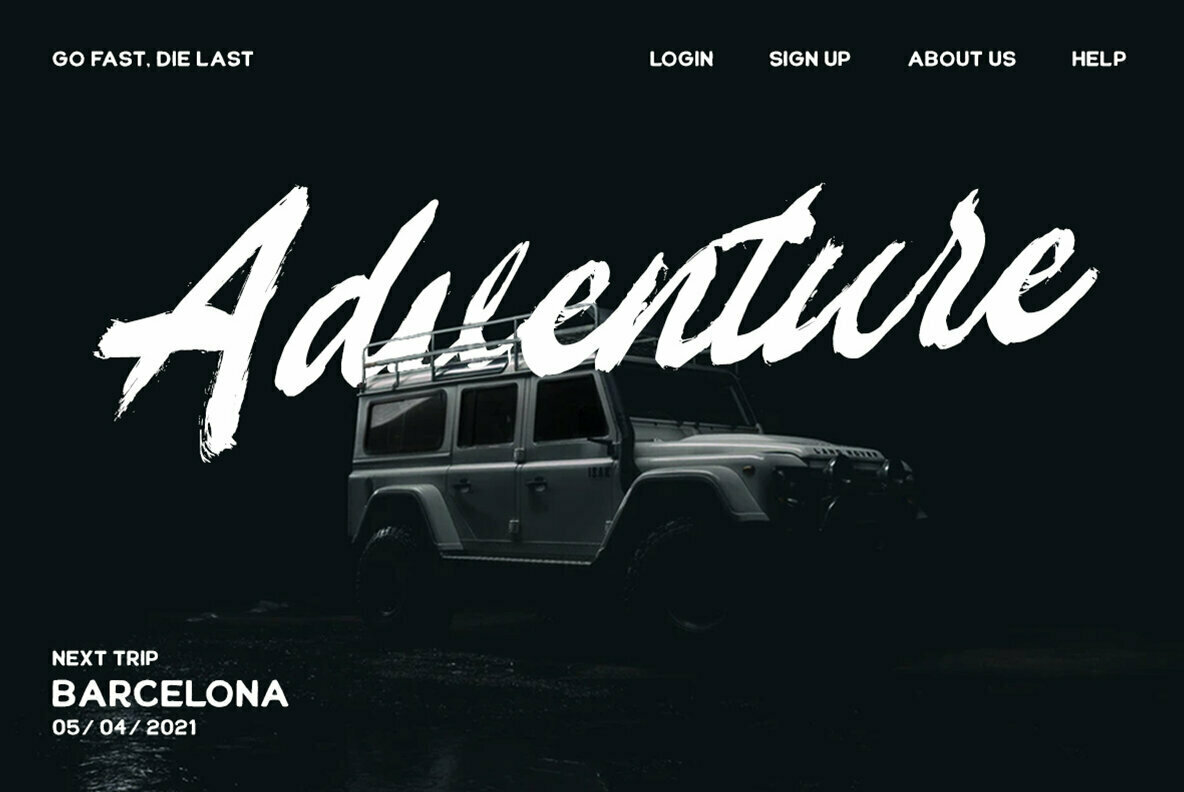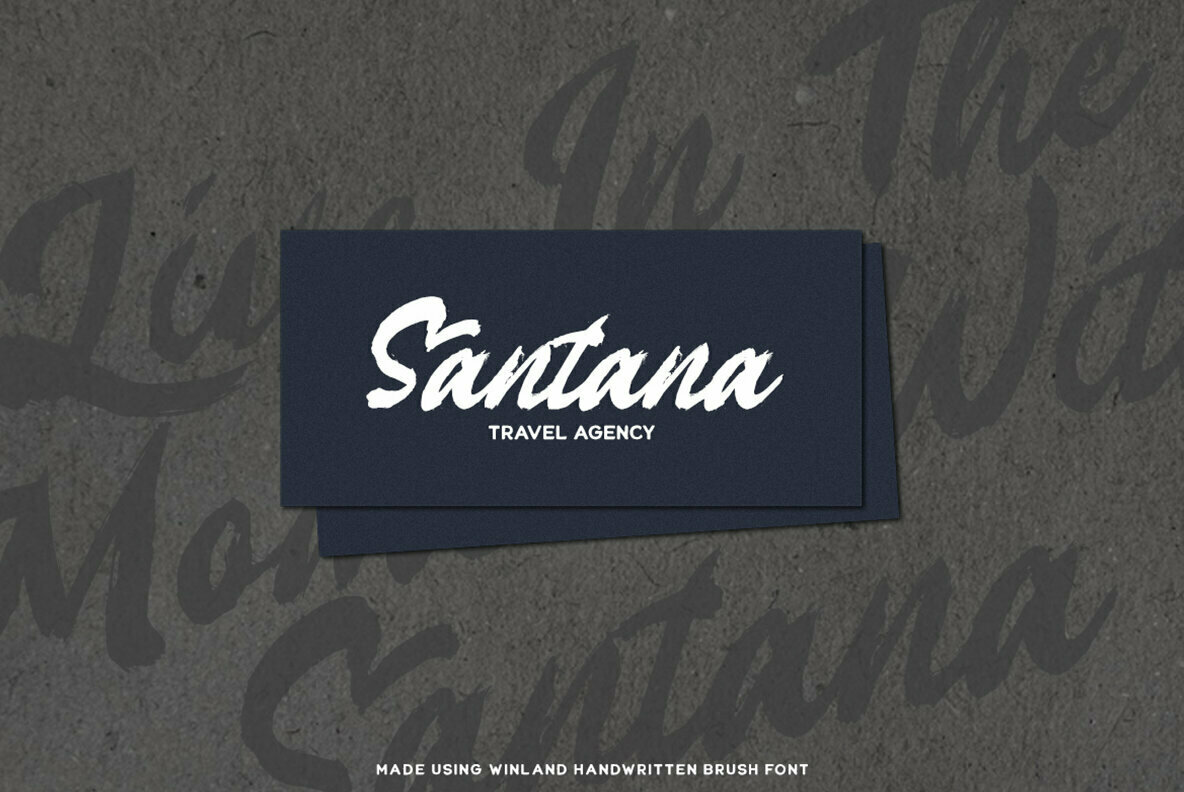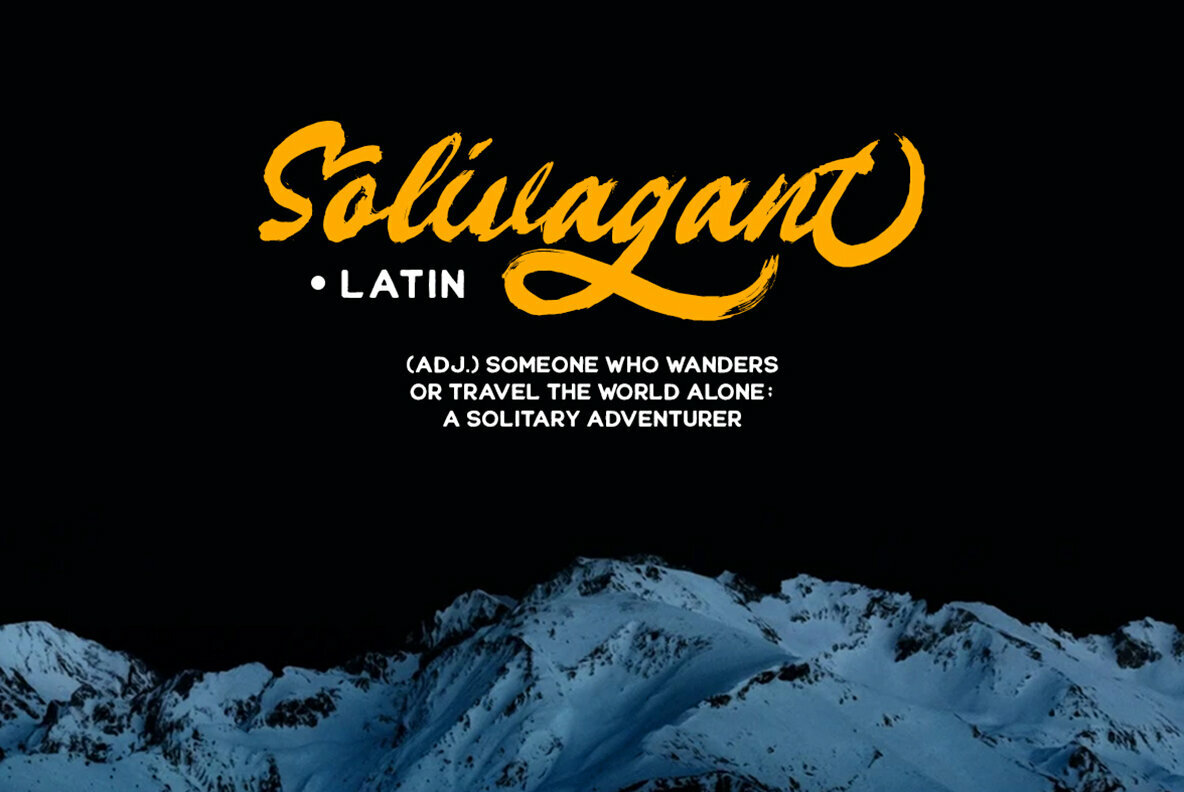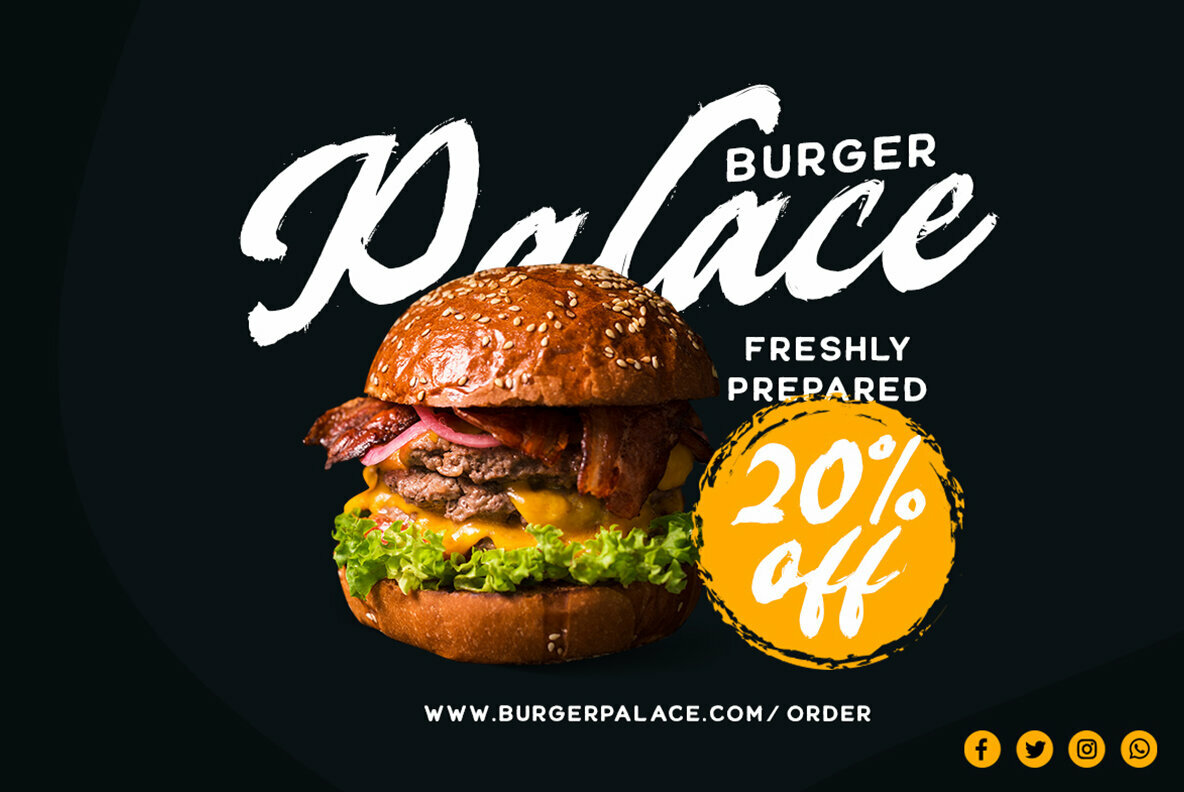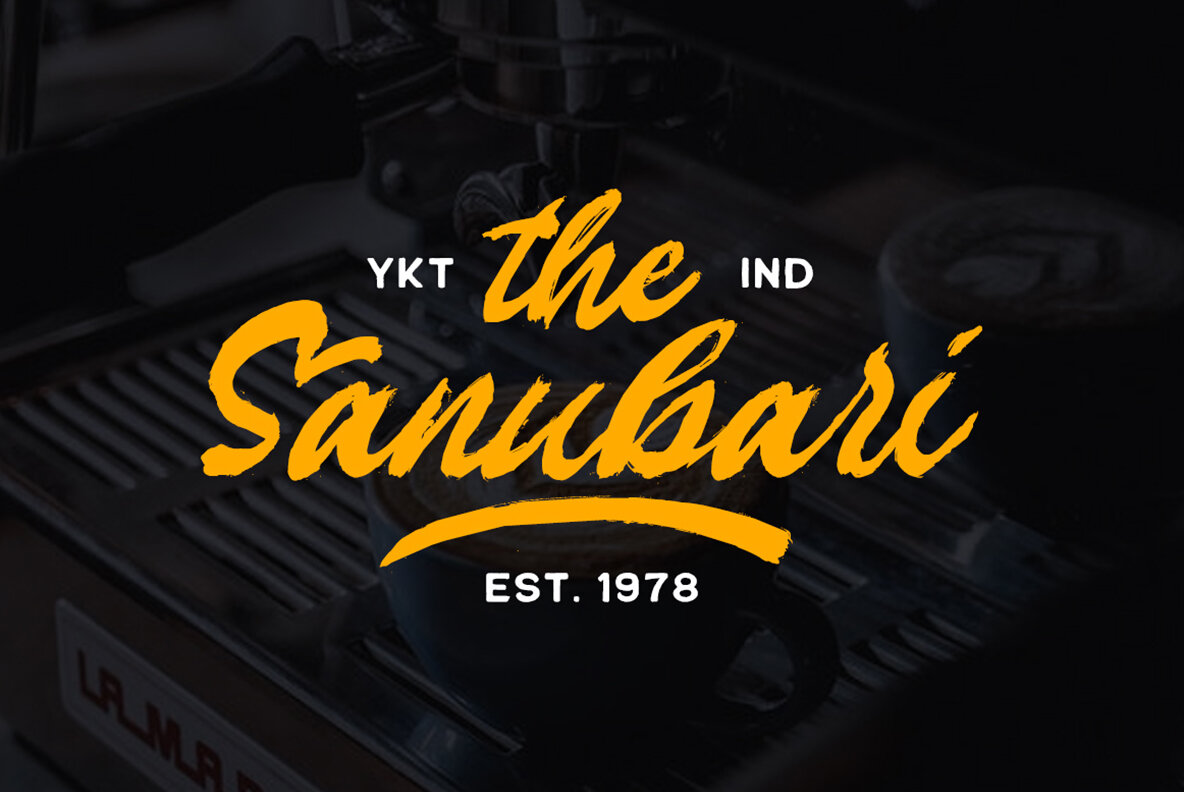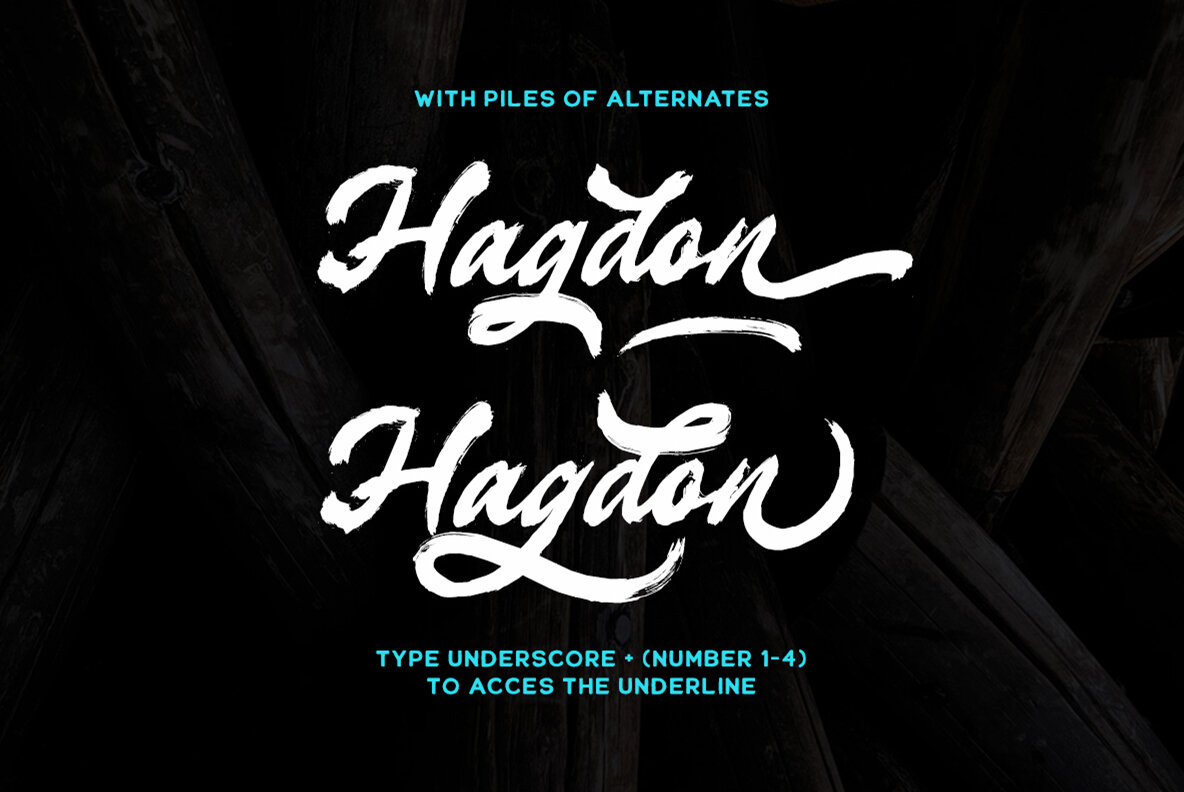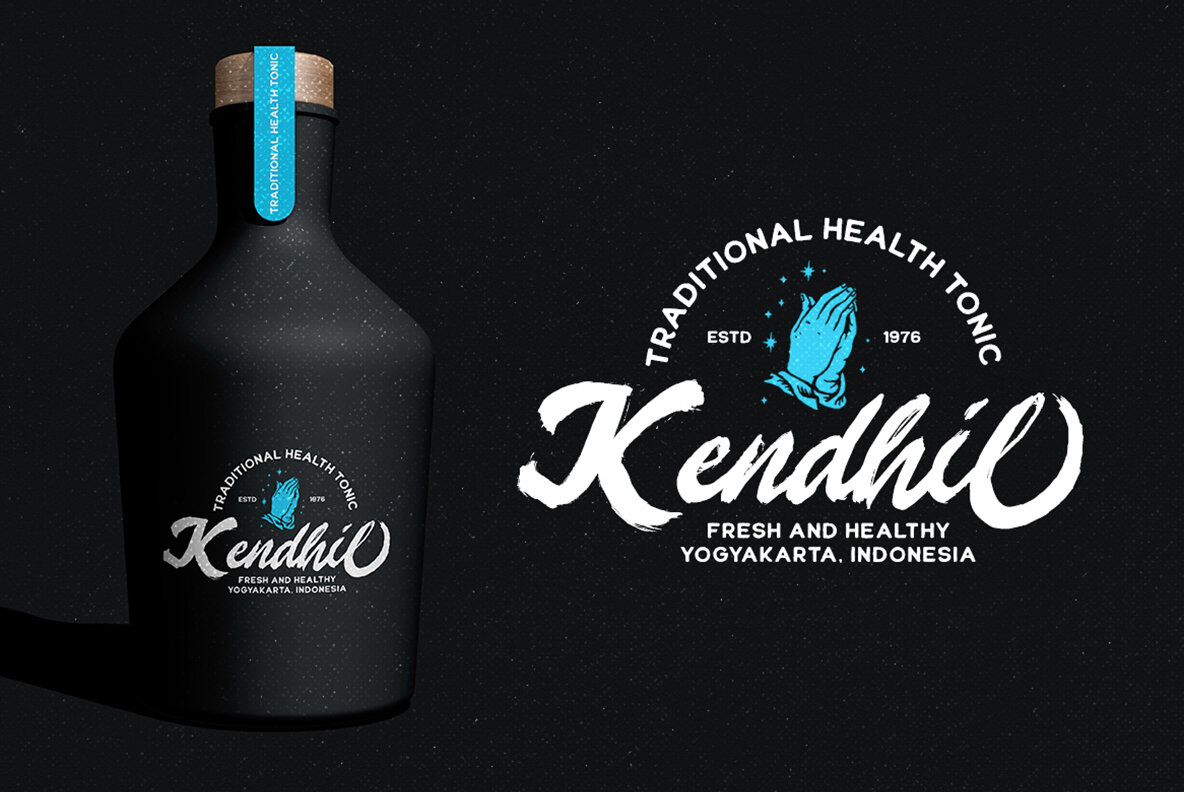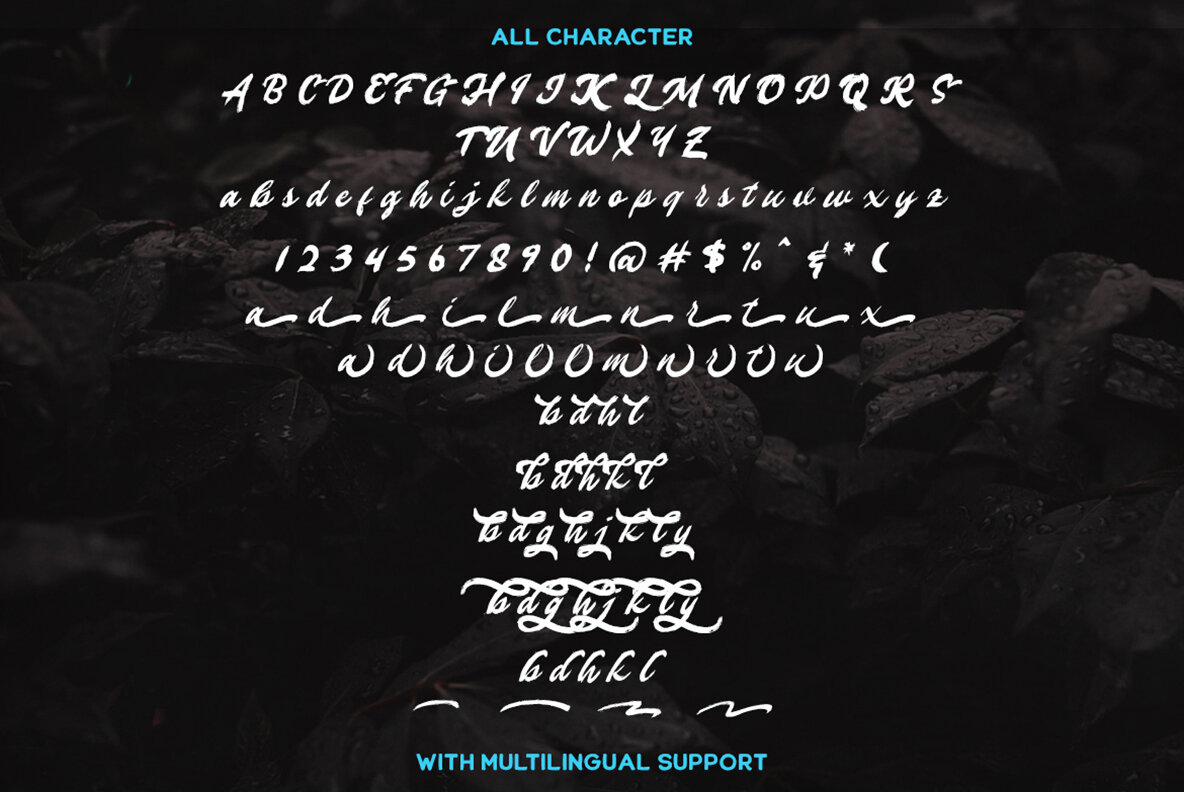
Winland Font
Winland Regular
Winland by Letterhend Studio exudes the authentic touch of a handcrafted brush, making it a perfect choice for designers seeking a natural, free-flowing aesthetic. Its versatile applications range from branding and packaging to headlines and motivational quotes, allowing your creative vision to come to life with ease and style. To fully explore Winland's potential, we recommend utilizing design software that supports OpenType features and Glyphs panels, such as Adobe applications and Corel Draw. This will allow you to access all available glyph variations and ensure a seamless design process.Winland: A Handwritten Brush Font with Natural Appeal